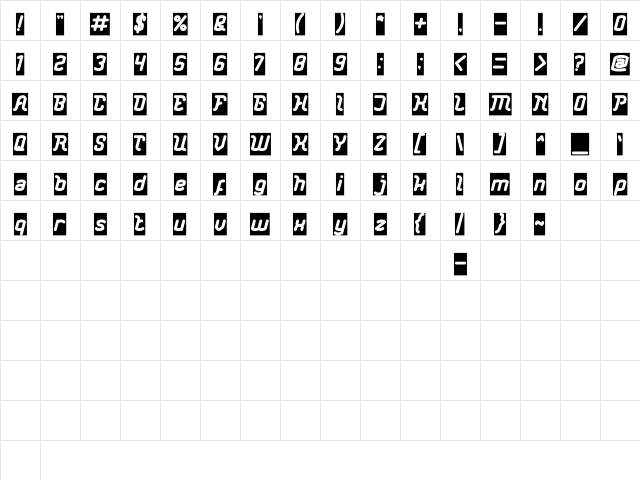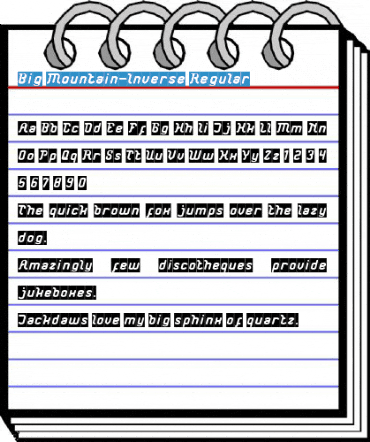
Complete Big Mountain-Inverse Regular glyph index. Displaying only characters natively supported by Big Mountain-Inverse Regular font.
Big Mountain-Inverse is a composed and adaptable typeface that performs quietly and consistently across a wide range of design contexts.